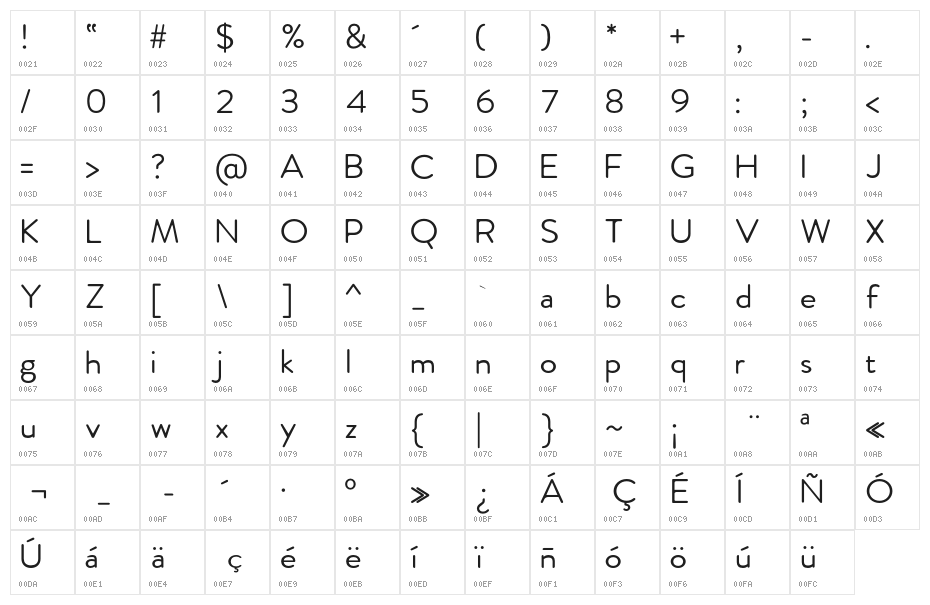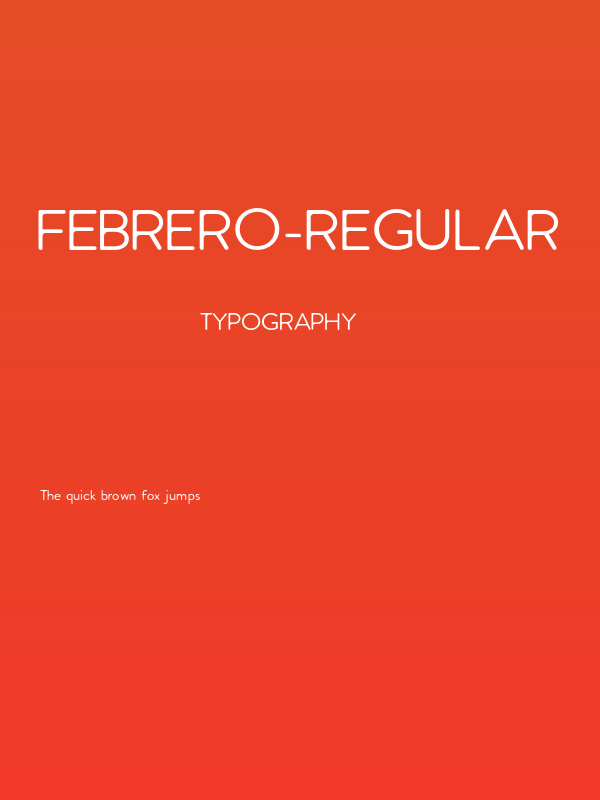
Febrero-Regular Font
Febrero-Regular Description
This font features a clean and modern sans-serif style with smooth, rounded edges and a uniform stroke width. The characters are well-proportioned, offering a harmonious and balanced appearance. The uppercase letters are slightly taller than the lowercase, providing a clear distinction between the two. The numerals are consistent in height with the uppercase letters, ensuring readability. Special characters are designed with the same attention to detail, maintaining the overall aesthetic of the font. This typeface is versatile, making it suitable for a variety of design projects.